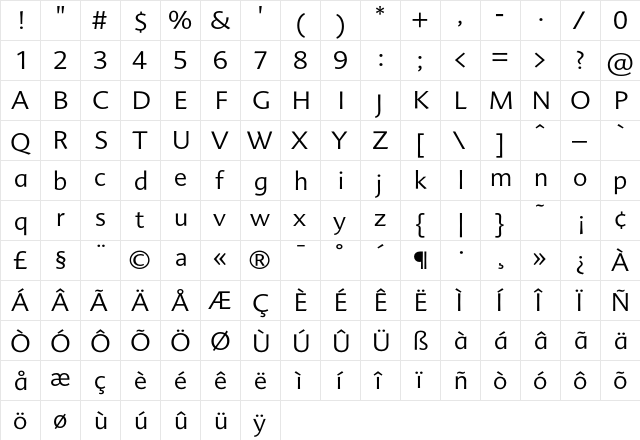
Advert Light Regular
Design Context for Advert Light Typeface
Advert Light takes a measured approach to typography — its balanced proportions and neutral character make it a reliable workhorse for both digital and print work. Its slender proportions lend an understated elegance to any composition.